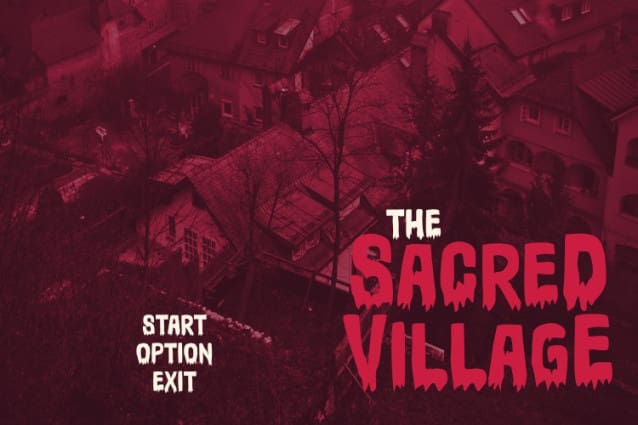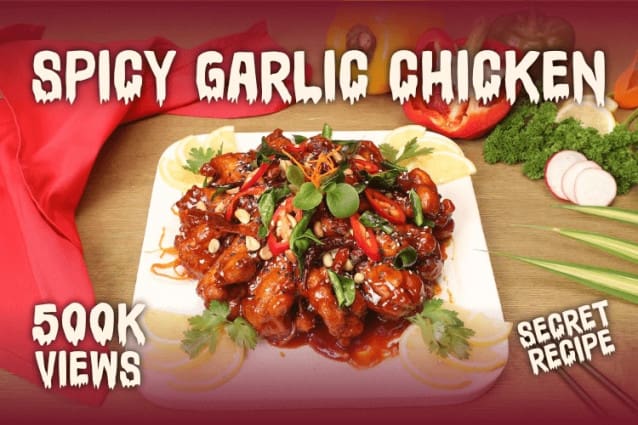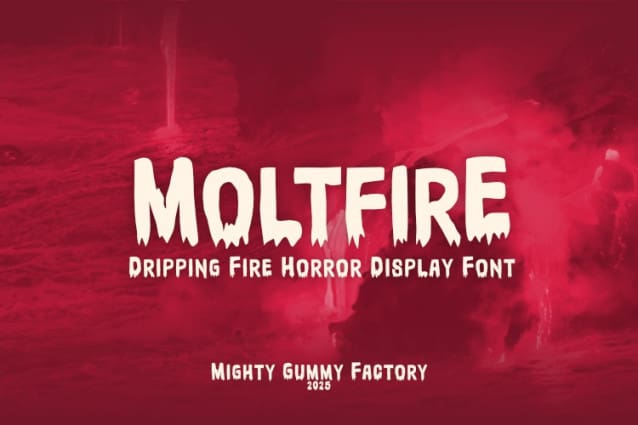
MGF Moltfire Font is a dripping fire horror font designed for bold and spooky projects. With its molten flame-inspired letters and creepy drips, it’s perfect for Halloween posters, horror branding, gaming covers, YouTube thumbnails, and edgy merchandise designs. Easy to use across print and digital, MOLTFIRE comes in OTF, TTF, and WOFF formats and is fully PUA encoded. If you’re looking for a scary, fiery, and attention-grabbing typeface, MOLTFIRE is your ultimate creative weapon.
MOLTFIRE is a bold dripping display font inspired by molten fire and horror aesthetics. Its playful yet spooky vibe makes it stand out in any design, bringing fiery energy with a creepy twist. The letterforms feature rounded bold strokes with dripping edges, creating a sense of movement and intensity.
Style & Vibe: Bold, creepy, playful, molten, horror-inspired
Intended Market: Halloween designs, gaming covers, spooky merch, event posters, YouTube graphics
Letterform Structure: Thick, hand-drawn sans-serif with dripping edges
Best Use Cases: Posters, branding, packaging, horror titles, festival graphics, apparel prints, digital covers
Looking for a font that instantly screams spooky fire and creepy fun? MOLTFIRE delivers the perfect balance of horror, playfulness, and energy, making your designs unforgettable during Halloween season, gaming launches, or eerie branding projects.